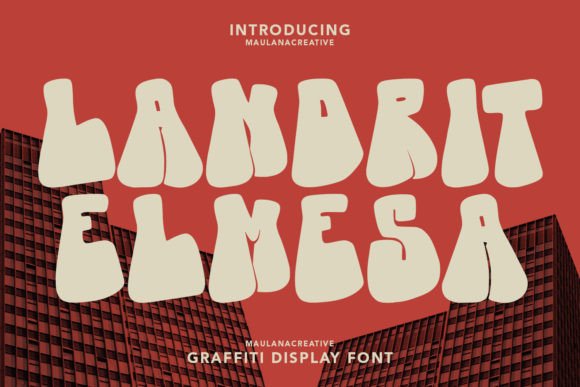
In the realm of digital design, fonts emerge as the unsung heroes, quietly shaping the impact of visual communication. Meet Landrit Elmesa, a display font family poised to transform your creative endeavors into captivating masterpieces. With its bold strokes and playful characters, Landrit Elmesa embodies the spirit of urban art, injecting a vibrant energy into your designs.
Imagine crafting logos that dance off the screen, social media posts that ignite engagement, movie titles that captivate audiences, and book covers that whisper tales of adventure. Landrit Elmesa's versatility extends to short texts and lengthy letters, seamlessly adapting to your storytelling needs. Blend it effortlessly with script or serif fonts, creating harmonious typographic compositions that resonate with your audience.
Landrit Elmesa is not just a font; it's an invitation to unleash your artistic prowess. Its graffiti-inspired aesthetics add an edgy touch to your designs, evoking the raw energy of street art. Whether you're a seasoned designer or just starting your creative journey, this font will empower you to make a stunning impact.
Embark on a typographic adventure with Landrit Elmesa, where every stroke tells a story and every letter exudes personality. Transform your designs into captivating works of art, leaving an indelible mark on the minds of your audience.